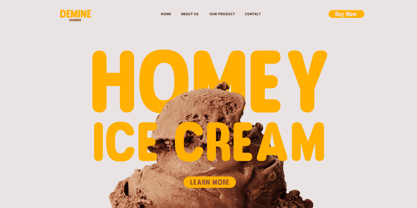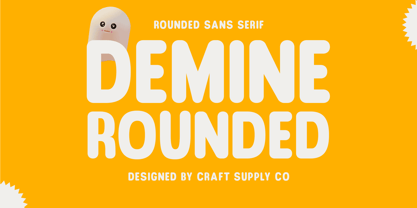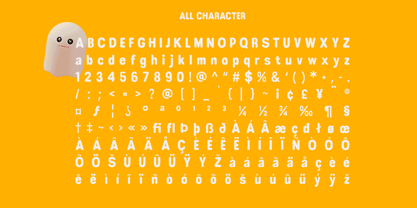
Demine Rounded
by Craft Supply Co
Demine Rounded: Adding Playful Vibes to Your Designs
Charming Rounded Boldness
Demine Rounded presents a delightful sans serif typeface, characterized by its rounded edges and bold demeanor. Each letter exudes a sense of charm and friendliness, perfect for adding a touch of playfulness to your designs.
Versatile Display Option
Tailored for display purposes, This font shines in various contexts, from poster designs to children’s book covers. Its bold and rounded appearance ensures that your message captures attention effectively.
Ideal for Fun-filled Projects
Whether you’re working on playful branding projects, cheerful invitations, or quirky product packaging, This font is your go-to choice. Its lighthearted demeanor brings joy and whimsy to any design endeavor.
User-Friendly and Accessible
With its rounded boldness and legible letterforms, This font is designed to be user-friendly and accessible to a wide audience. Its playful charm appeals to both young and old, making it a versatile option for designers of all levels.
Playfulness Meets Boldness
This font stands out as a charming sans serif font, perfectly blending playful vibes with boldness. Whether you’re crafting designs for children or simply aiming to add a touch of whimsy to your projects, Demine Rounded is sure to delight and captivate your audience.